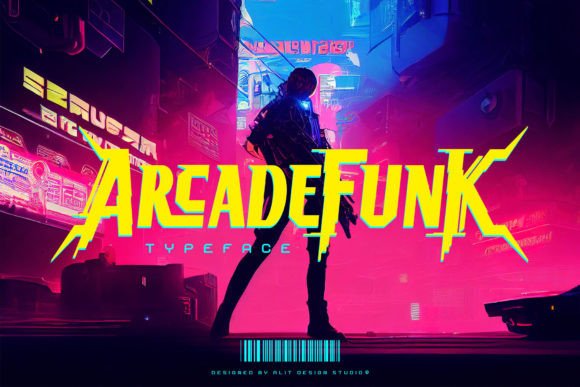
Introducing “Arcade Funk” Typeface – Where Modern Funk Meets Brutalism!
Imagine you’re working on a game design project, and you’re struggling to find the perfect font that captures the rebellious spirit of punk futuristic games. Your client wants something bold, modern, and eye-catching. You’ve scoured the internet, but nothing seems quite right. That’s when you stumble upon “Arcade Funk” Typeface. This font is not just a type; it’s a statement. In this article, we’ll dive into the world of Arcade Funk, exploring its features, versatility, and how to make the most of it in your designs.
Unleashing the Rebellious Spirit of Punk Futuristic Games
Arcade Funk brings a vibrant blend of funky aesthetics and contemporary appeal. Each character is a testament to the bold, rebellious spirit of punk, making it the perfect choice for games that defy the conventional. The typeface draws inspiration from the raw, unapologetic architectural style of brutalism, infusing it with a touch of futurism to create a truly unique visual experience.
Funky Vibes, Modern Appeal
The Arcade Funk font is designed to make a statement. Its bold lines, geometric shapes, and edgy vibe make it perfect for game interfaces, posters, or promotional materials. The font’s modern appeal ensures it will fit right in with contemporary designs, while its funky vibes add a touch of personality and whimsy.
• ✨ Unique and bold design: Arcade Funk’s brutalist-inspired aesthetic sets it apart from other fonts.
• ✅ Versatility: This font adapts effortlessly to different design contexts, from game interfaces to promotional materials.
• 💻 Easy to read: Despite its bold and edgy design, Arcade Funk remains surprisingly legible.
While Arcade Funk is an excellent font, there are a few things to keep in mind:
• 🤔 Limited use in formal contexts: Due to its bold and edgy design, Arcade Funk might not be the best fit for formal or professional projects.
• ⚠️ Requires careful color selection: The font’s bold lines and geometric shapes can be overwhelming if paired with the wrong colors.
Exploring OpenType Features, Glyphs, and Stylistic Alternates
Arcade Funk comes with a range of OpenType features, glyphs, and stylistic alternates that can add more personality to your design. Experiment with different font styles, such as:
• Stylistic alternates: Swap out characters for alternative designs.
• Glyphs: Add special characters and symbols to your design.
• OpenType features: Take advantage of advanced typographic features, such as ligatures and swashes.
The creators of Arcade Funk drew inspiration from the world of punk futuristic games and brutalist architecture. They wanted to create a font that captured the rebellious spirit of punk while incorporating modern design elements. The result is a unique and bold font that’s perfect for designers looking to make a statement.
Q: Is Arcade Funk suitable for body text?
A: While Arcade Funk is legible, its bold design makes it more suitable for headings and titles.